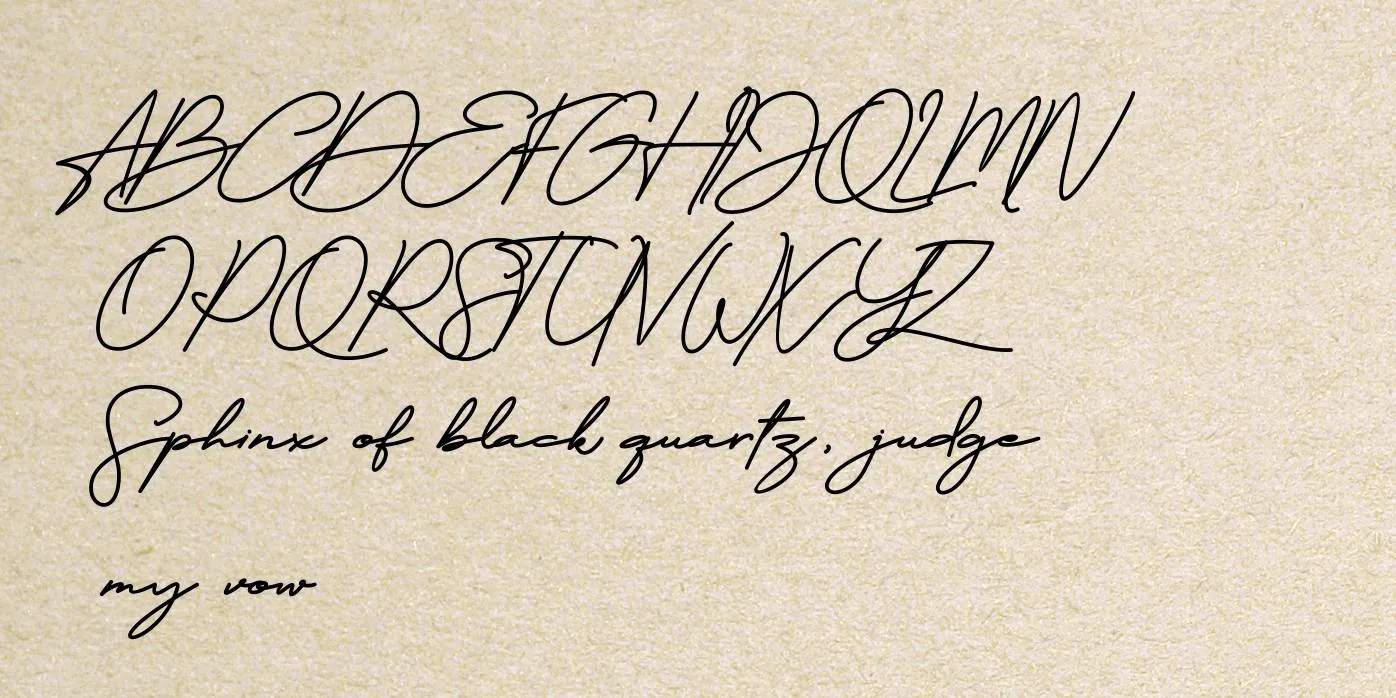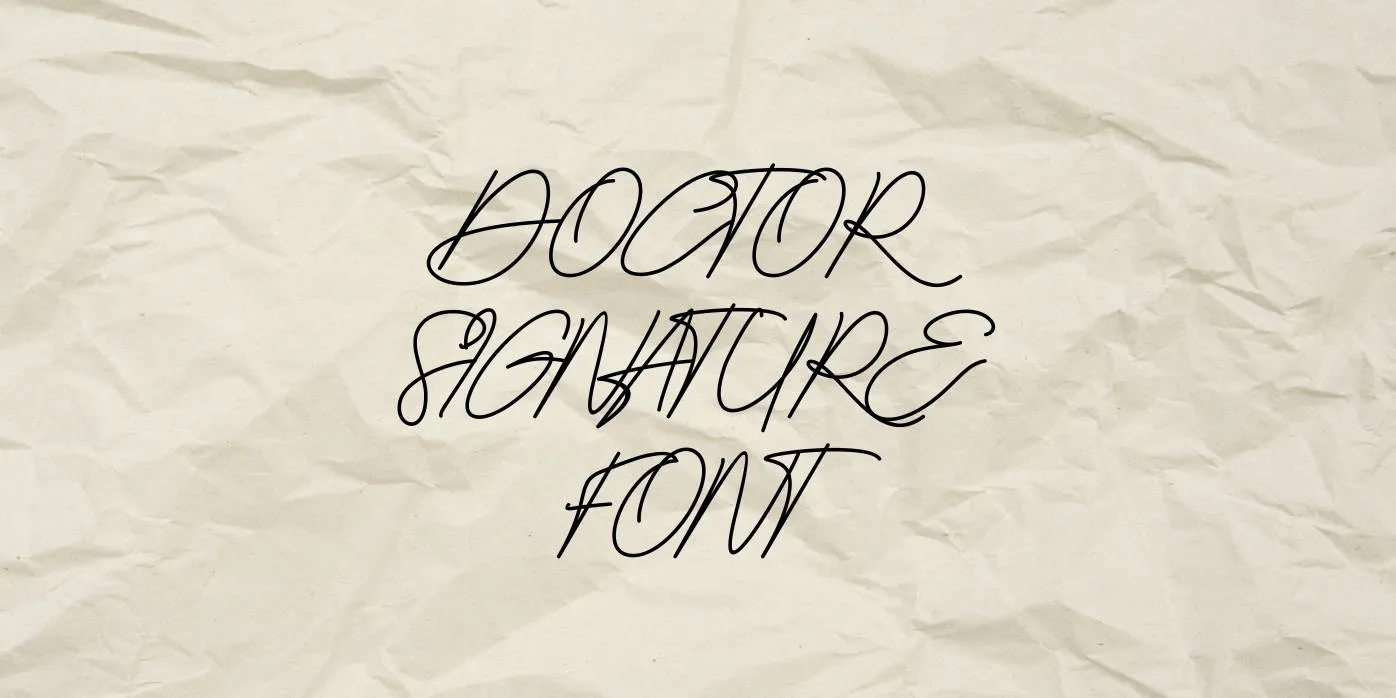
Doctor Signature Font
Doctor Signature font is the most beautiful typeface with an elegant handwritten style and signature look. The font family belongs to a Handwritten font family that is the best working of Putra Cetol Font Studio. It has TTF features and is free for personal use only. The font has OpenType Layout and TrueType Outlines as well and if talk about its glyphs the font family has Uppercase Letters, Lowercase Letters, and some useful symbols only.
This typeface is seeming an originally handwritten signature as someone wrote this with a hand signature. When you go to a doctor, he will prescribe you medicine in a similar way like this typeface writing.  This typeface provides a pure handwritten signature feeling to the users. It supports many international languages and provides the best performance to the user and viewer.